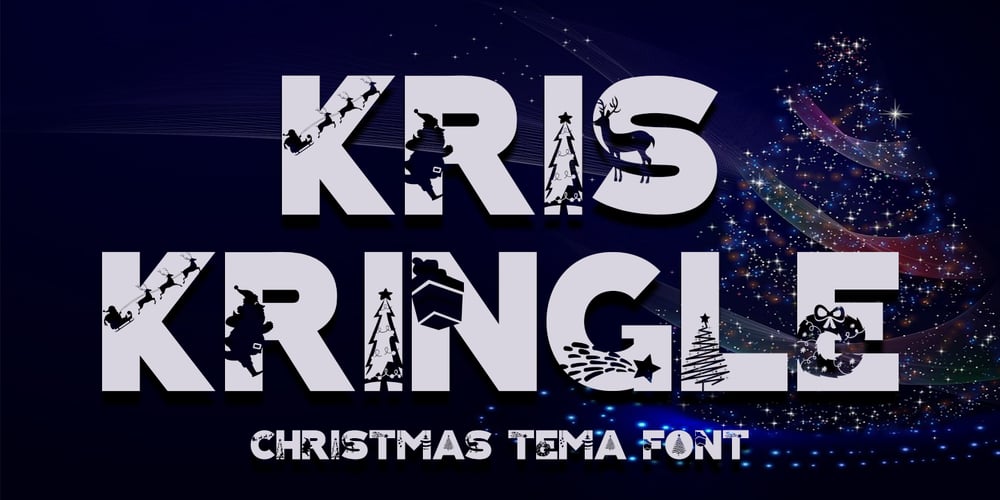
Kris Kringle Font Family was designed by Saiful Anwar and published by Sealoung. Kris Kringle contains 1 styles and family package options. Kris Kringle is a bold and chunky lettered display font. Add this font to your creative ideas and notice how it will make them stand out! All caps fonts.